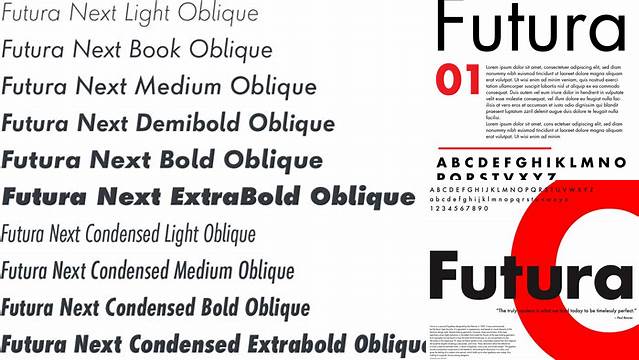
Welcome, folks! Today, we're diving deep into the world of typography, specifically the sleek and timeless Futura Next font. We'll explore how you can snag a Futura Next Font Free Download TTF and all the juicy details that come with it. Whether you're a seasoned designer, a budding enthusiast, or just someone who appreciates a well-crafted typeface, this guide has something for you. So, buckle up, and let's get started on this typographic adventure!
Futura Next Font: An Introduction to a Modern Classic
Alright, guys, let's kick things off with a little background. The Futura Next Font is a contemporary take on the iconic Futura typeface. Designed by Paul Renner in 1927, the original Futura was groundbreaking, characterized by its geometric shapes and clean lines. Think of it as the font equivalent of a perfectly tailored suit – always in style and incredibly versatile. Futura Next builds upon this legacy, offering refined curves, improved readability, and a wider range of weights and styles. This makes it a fantastic choice for everything from headlines and body text to logos and branding materials. The beauty of Futura Next Font lies in its simplicity and neutrality, which allows it to adapt seamlessly to various design contexts. Its geometric construction gives it a modern feel while maintaining a timeless appeal. This makes it a popular choice for a variety of applications, from corporate branding to editorial design. One of the key features of Futura Next Font is its exceptional legibility, even at small sizes. This makes it ideal for body text, ensuring that your content is easily readable and accessible. Also, its versatility is another great benefit. The font family includes a range of weights and styles, including light, regular, bold, and italic versions, which allows you to use it in various design projects. The geometric design of this font is what makes it different from others, and it's known for its ability to add a contemporary touch to designs. This also allows it to give an elegant and professional touch to any design, and the wide availability of styles provides a lot of room for creativity. It's not just about aesthetics, though. Futura Next Font is also incredibly practical. Its clean lines and geometric forms make it easy to read, and the various weights and styles offer flexibility in design. Whether you're designing a website, a brochure, or a simple poster, Futura Next Font can help you create a professional and visually appealing result. Furthermore, its modern appeal ensures that your design will stay relevant for years to come. Choosing the right font can make or break a design, and Futura Next Font offers the perfect balance of style, readability, and versatility. This makes it an excellent choice for anyone looking to create a memorable and effective design.